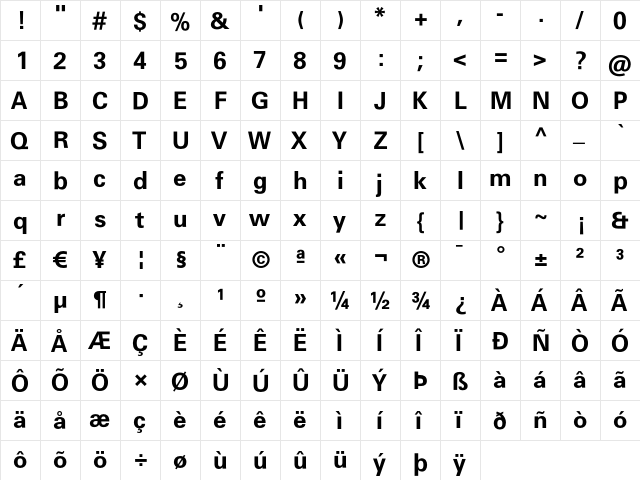
AudiSans Bold Font Preview
AudiSans Bold
Design Context for AudiSans Typeface
AudiSans takes a measured approach to typography — its balanced proportions and neutral character make it a reliable workhorse for both digital and print work. Its bold stroke weight gives it real presence on the page.